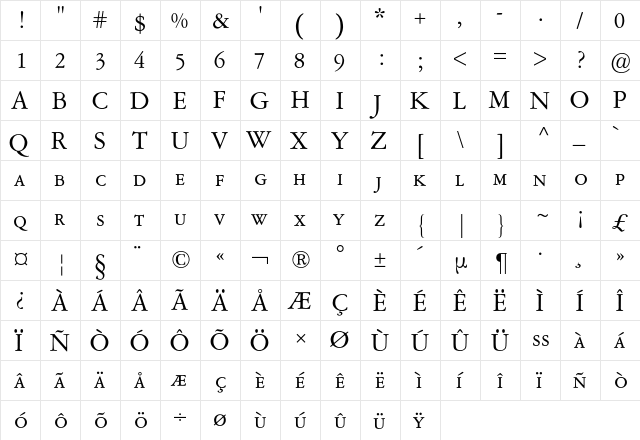
Garamont Amsterdam Expert BQ Regular
Design Context for Garamont Amsterdam Expert BQ Typeface
Garamont Amsterdam Expert BQ takes a measured approach to typography — its balanced proportions and neutral character make it a reliable workhorse for both digital and print work.